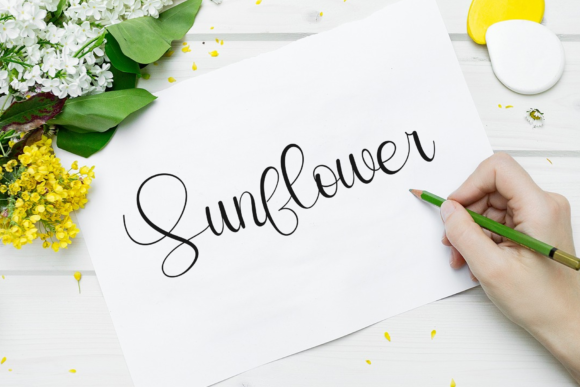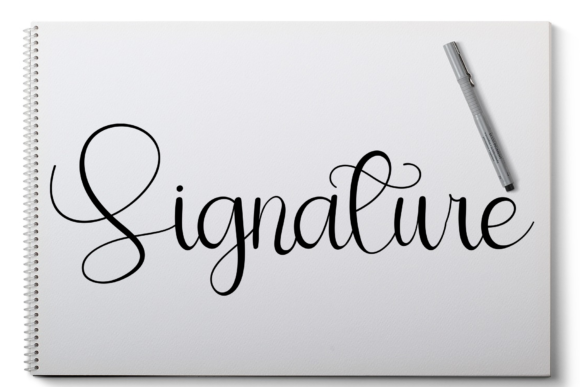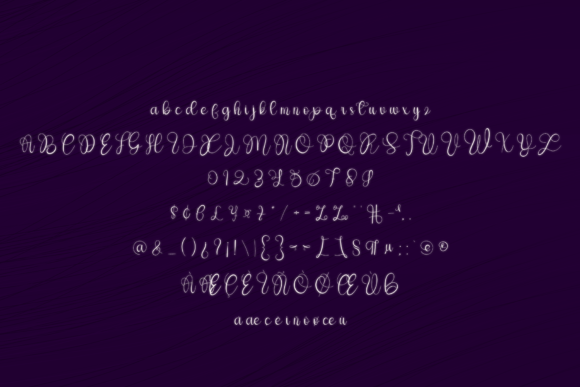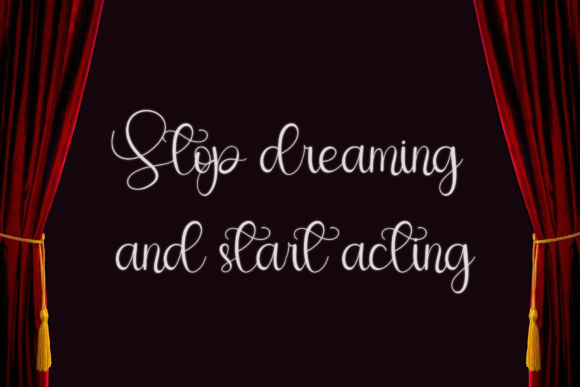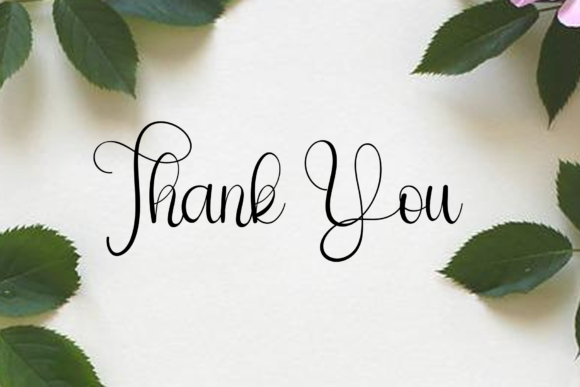
Hello Summer Font
About Hello Summer Font
Introducing “Hello Summer,” a delicate handwritten font carefully crafted to bring a cool and unique design to your projects. This font offers versatility, making it suitable for a range of applications such as writing letters, invitations, labeling food products, creating titles, and more.
Hello Summer’s handwritten style exudes a sense of delicacy, adding a touch of warmth and personality to your designs. Its careful crafting ensures a unique and cool aesthetic, making it a valuable asset for a variety of creative endeavors. Whether you’re working on personal correspondence or commercial projects, Hello Summer brings a delightful and inviting quality to your text.
One notable feature of Hello Summer is its PUA encoding, providing easy access to all the glyphs and swashes. This encoding feature empowers designers to effortlessly explore and incorporate a myriad of unique characters, allowing for greater customization and creative expression.
Imagine Hello Summer gracing your invitations, infusing them with a delightful and cool vibe. Picture it adding a touch of uniqueness to your food product labels, capturing attention with its handwritten charm. The font’s delicate craftsmanship ensures that it seamlessly adapts to different contexts, making it a versatile choice for various design applications.
In essence, Hello Summer is more than just a font; it’s a design companion that brings a delicate and cool aesthetic to your projects. Its handwritten charm and PUA encoding are invitations to explore creative possibilities and add a personalized touch to your text. Choose Hello Summer to infuse your designs with a delightful and unique handwritten style, turning each project into a cool expression of creativity.